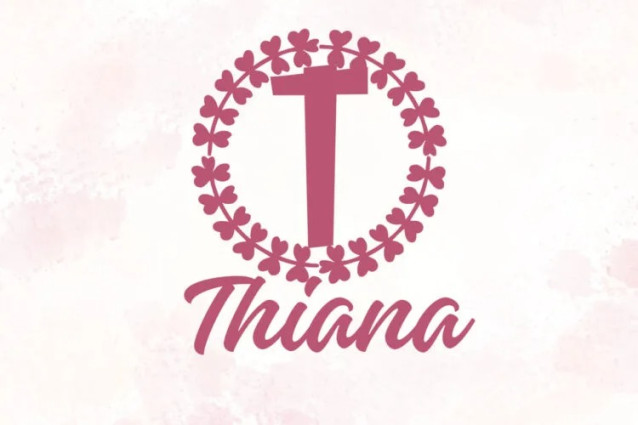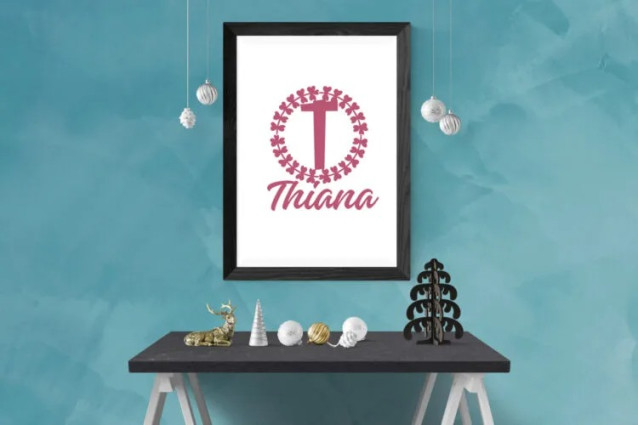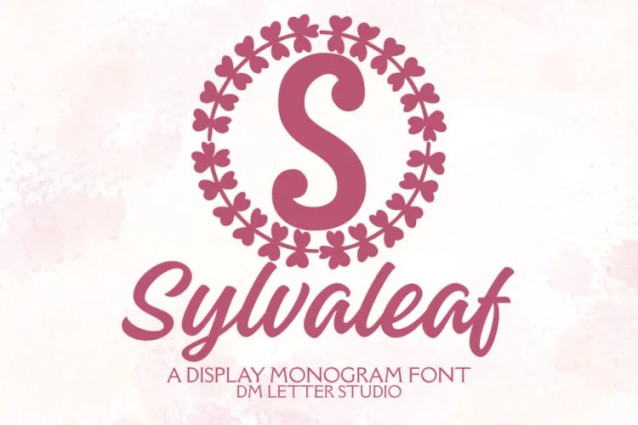
Sylvaleaf Monogram Font
Sylvaleaf Monogram Font turns simple initials into soft, woodland-inspired emblems that feel natural, elegant, and handcrafted. The strokes are smooth and balanced, so letters stay clear at any size. Because counters remain open, tiny tags print crisp while large signage looks refined and premium. Use it for wedding suites, boutique logos, keepsake gifts, wax seals, stationery, and luxury packaging. As a result, your designs gain a leafy, organic charm that looks gift-ready right away.
Fast layouts with the Sylvaleaf Monogram Font
Start with a generous initial and let white space breathe. After that, add names, dates, or short titles in a simple supporting font. Because Sylvaleaf holds shape at small sizes, cards, cartons, acrylic signs, and tags print beautifully. In addition, the proportions love wreath frames, laurel rings, oval borders, and simple foliage accents, so full sets come together in minutes. Finally, save palette pairs like sage & ivory, forest & cream, blush & cocoa, or champagne & charcoal to repeat across product lines.